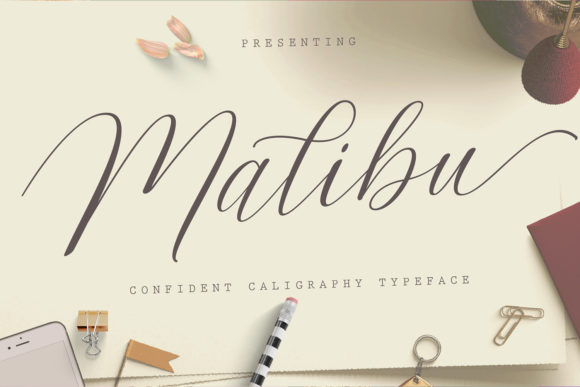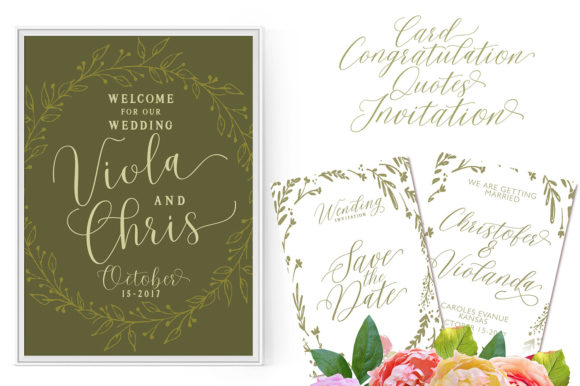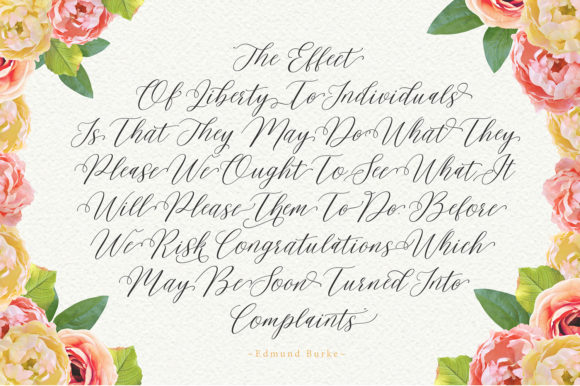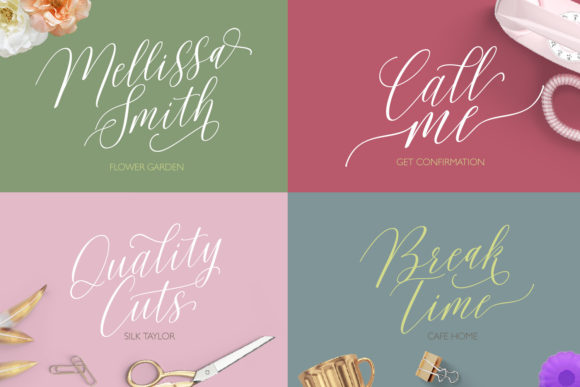
Malibu Script Font
About the Malibu Script Font
Discover the charm of Malibu Script Font. This font is a perfect blend of modern aesthetics and classic appeal. Malibu is a splendid script font that beautifully combines classic calligraphy with a modern feel. This typeface is perfect for titles, signatures, logos, wedding invitations, t-shirts, letterhead, signage, labels, newsletters, posters, badges, etc.
Malibu Script’s elegant yet modern feel makes it ideal for branding projects requiring a touch of sophistication, particularly logos, headlines, and short-form text on packaging or invitations. It excels in creating a sense of luxury and personality. However, its delicate strokes and ligatures are less suited to body text or UI elements where readability at smaller sizes is crucial. Avoid using it for long paragraphs.
Pairing Malibu Script with a clean sans-serif like Montserrat or a geometric sans-serif like Futura provides a strong contrast, balancing its flowing script form with modern structure. For a warmer feel, a classic serif such as Garamond or a more contemporary serif like Playfair Display could complement its calligraphic nature.
The overall personality of Malibu Script is sophisticated and approachable, making it a versatile choice for brands aiming for a balance of elegance and approachability.